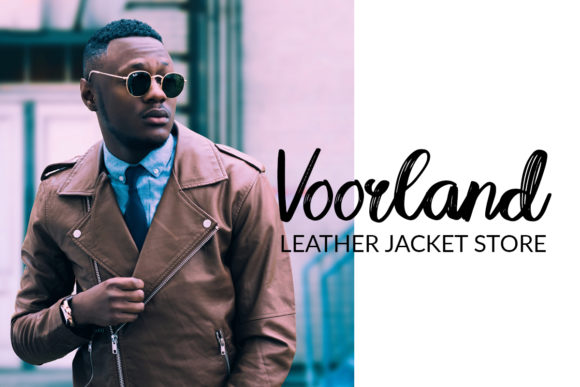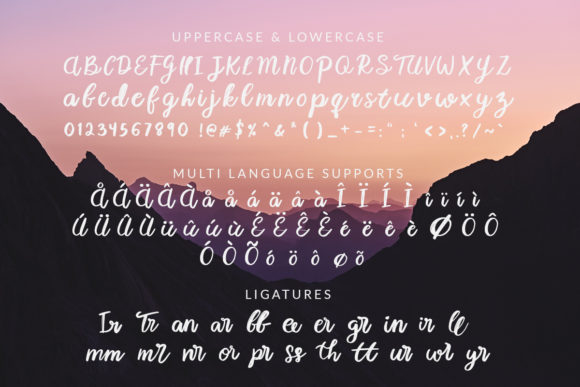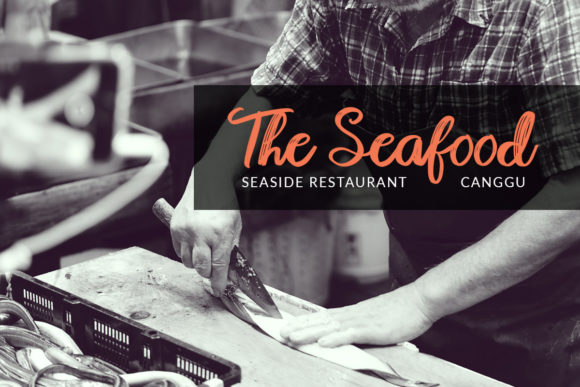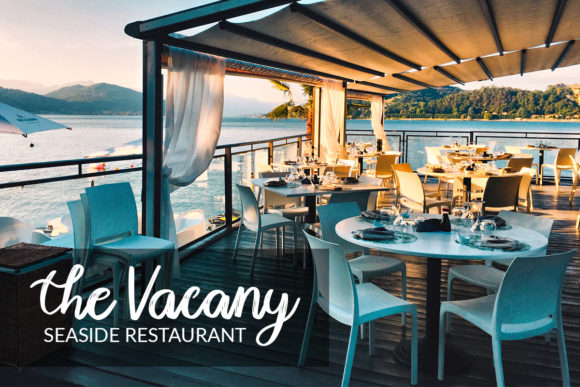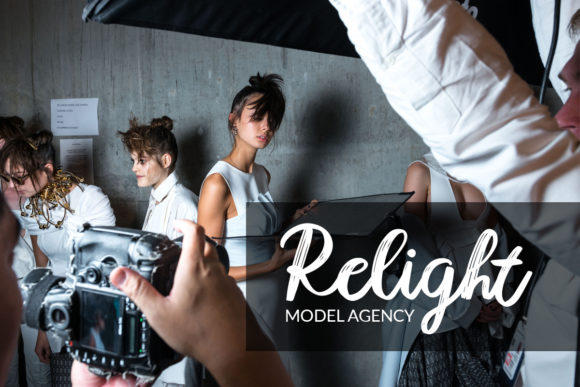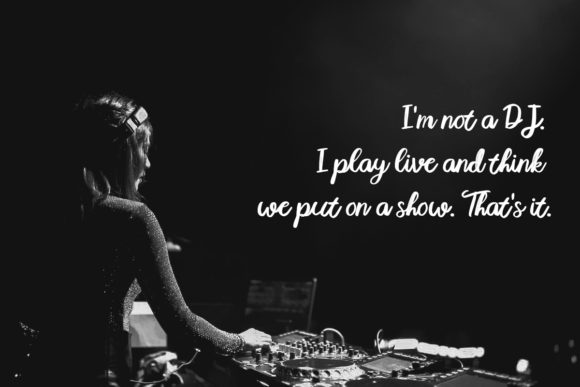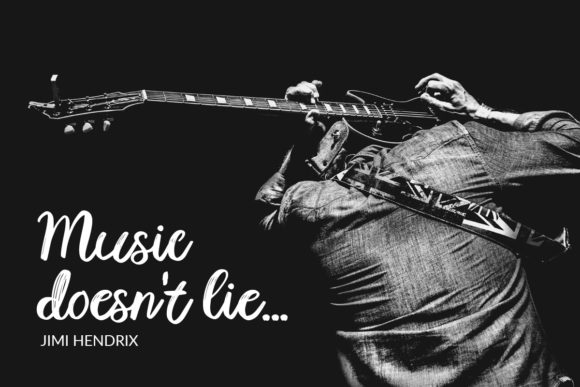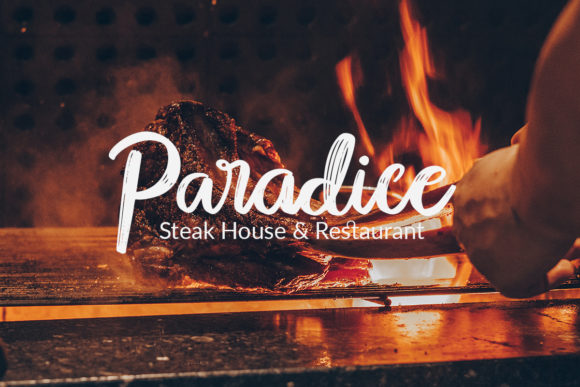
HomeScript FontsKarmany Font Script Fonts Karmany Font FacebookXPinterestWhatsApp Karmany Font Poster 2 Karmany Font Poster 3 Karmany Font Poster 4 Karmany Font Poster 5 Karmany Font Poster 6 Karmany Font Poster 7 Karmany Font Poster 8 Karmany Font Poster 9 About Karmany Font Karmany is a sweet and cool handwritten font with a unique style. It will add a bold flavor to any design idea! DOWNLOAD NOW People also explored Felmay Font Outside Font Burtuqol Font Christofer Font Brilliant Fighter Saturday Holiday Font Lazy Bubbles Font Cow Pies Font Palm Beach Font 343 0 TagsKarmany Font Previous articleSiantar FontNext articleLunik Sangat Font LEAVE A REPLY Cancel reply Comment: Please enter your comment! Name:* Please enter your name here Email:* You have entered an incorrect email address! Please enter your email address here Website: Save my name, email, and website in this browser for the next time I comment. Personal Use Free Lost Treasure Personal Use Free Read more about this font Mike Ferrari 16017 Personal Use Free Read more about this font Jellia Personal Use Free Read more about this font Amelline Personal Use Free Read more about this font BLOG Best Fonts for T-Shirt Design – Top 2025 Picks In 2025, t-shirt design has become more than just fashion—it's a form of self-expression. Whether you're... Top 10 Handwritten Fonts That Elevate Your Designs Where to Buy American Fonts Online in 2024 Fonts That Capture the Spirit of New York City